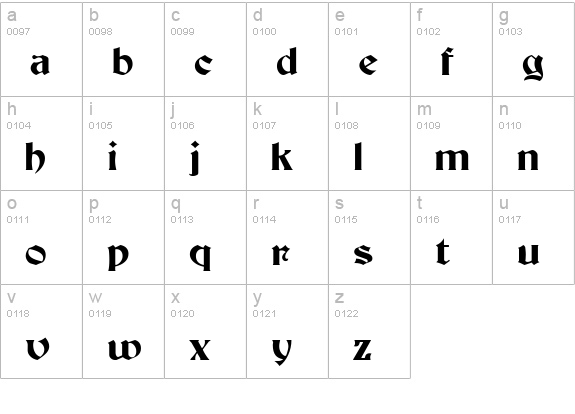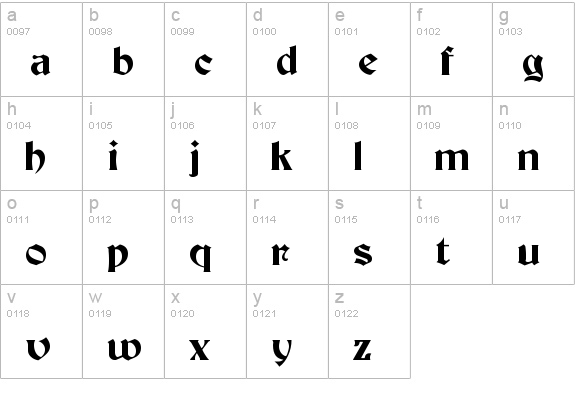
Buckingham Font Details
Introducing Buckingham font, a stunning and elegant typeface that exudes sophistication and class. This timeless font features sleek lines and a classic design, making it perfect for a wide range of projects. Whether you're creating invitations, branding materials, or signage, Buckingham font will elevate your work to the next level. And the best part? Buckingham font is completely free to download at FontsMarket.com. Yes, you read that right – you can access this exquisite font at no cost, making it a valuable addition to your font collection. Don't miss out on the opportunity to enhance your designs with the beauty and charm of Buckingham font. Download it today and let your creativity shine!